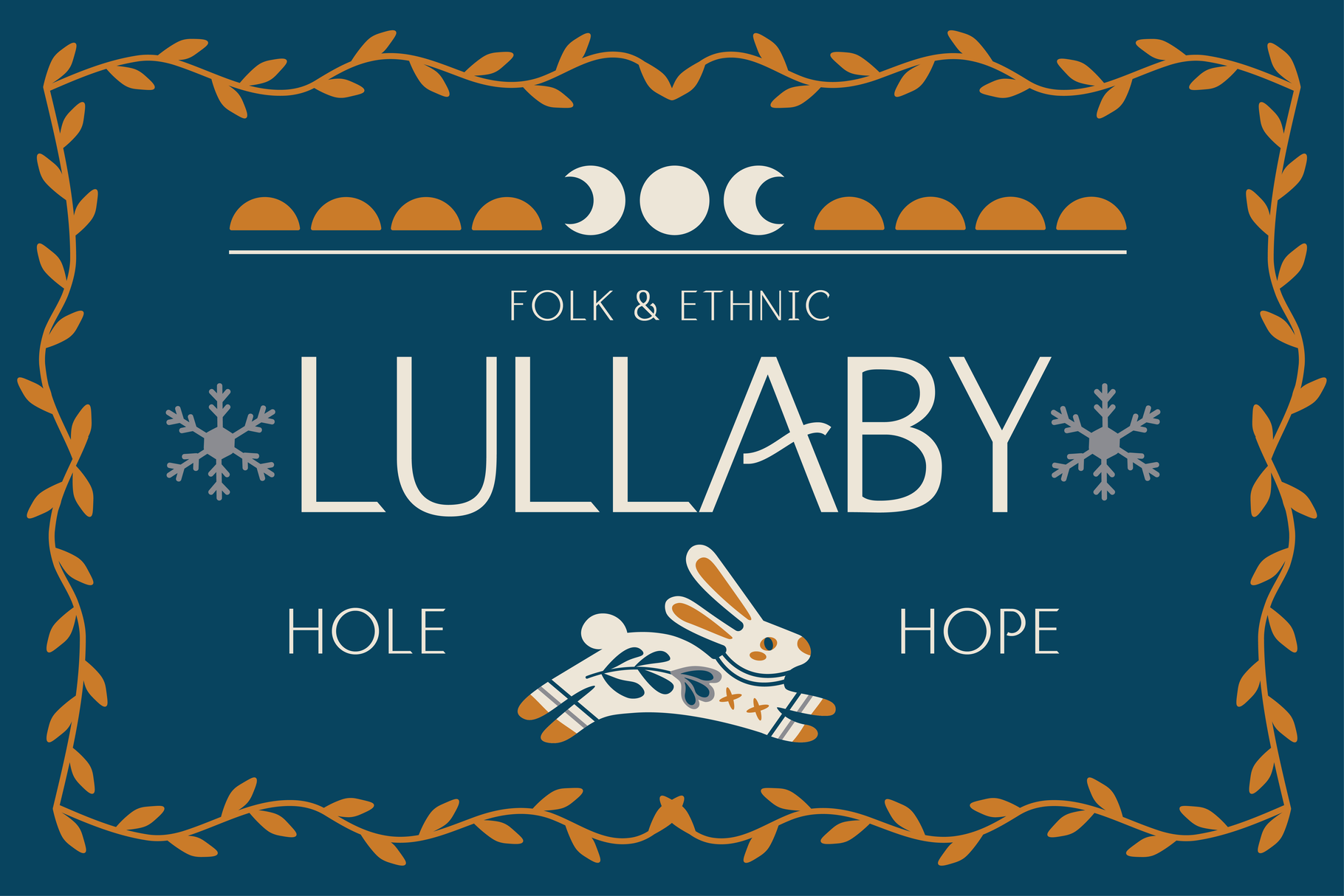
Lullaby | Display Typeface Font
Lullaby is a charming typeface inspired by the rich traditions of Folk Art and Ethnic. It's intricate details and handcrafted essence evoke the beauty of cultural storytelling, weaving together timeless elegance and a rustic touch. Perfect for projects that celebrate heritage, Lullaby brings warmth and personality to invitations, packaging, textiles, and more. Let it's artistic curves and organic feel lull your designs into a world of authentic creativity and soulful connection.